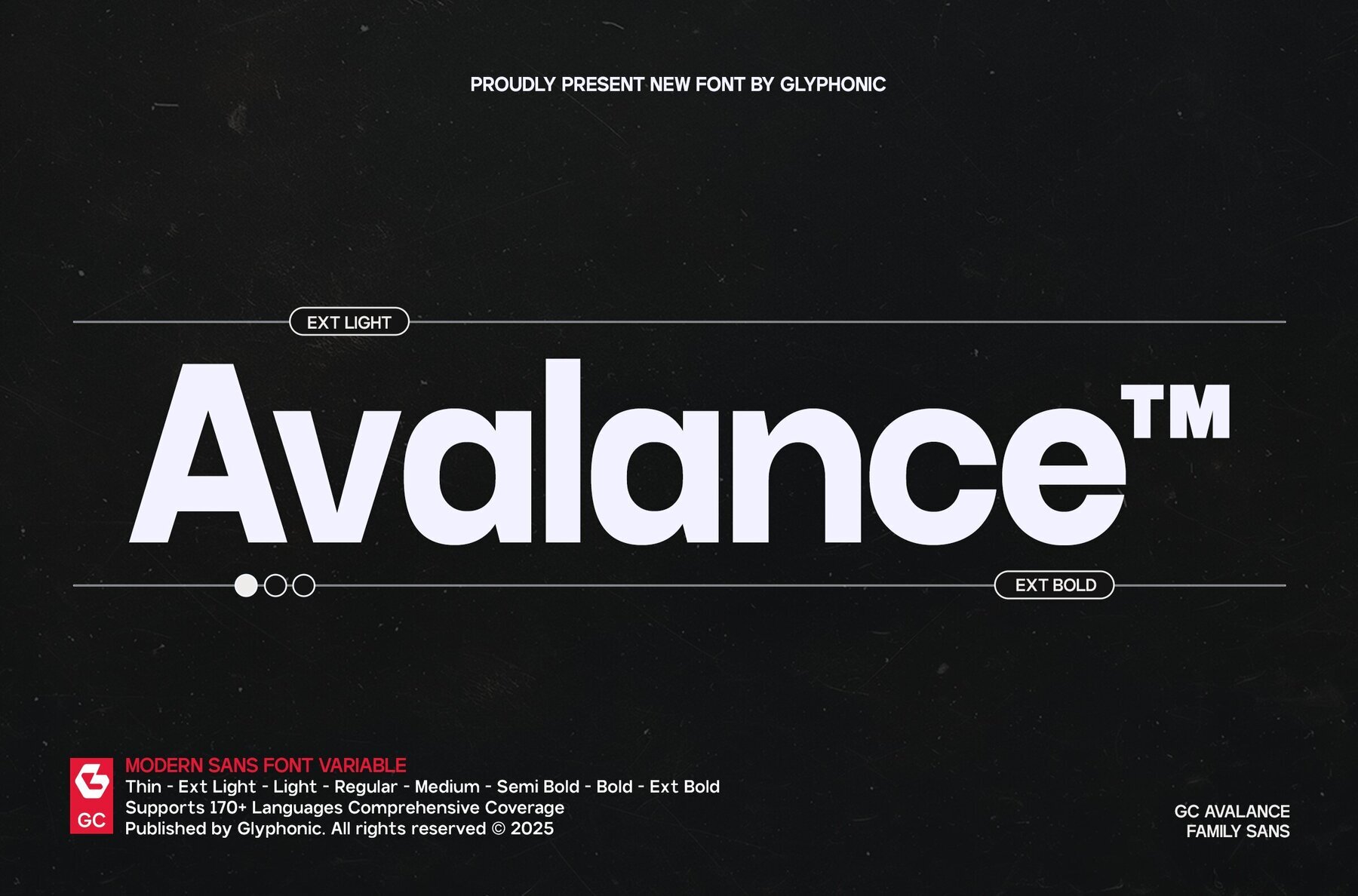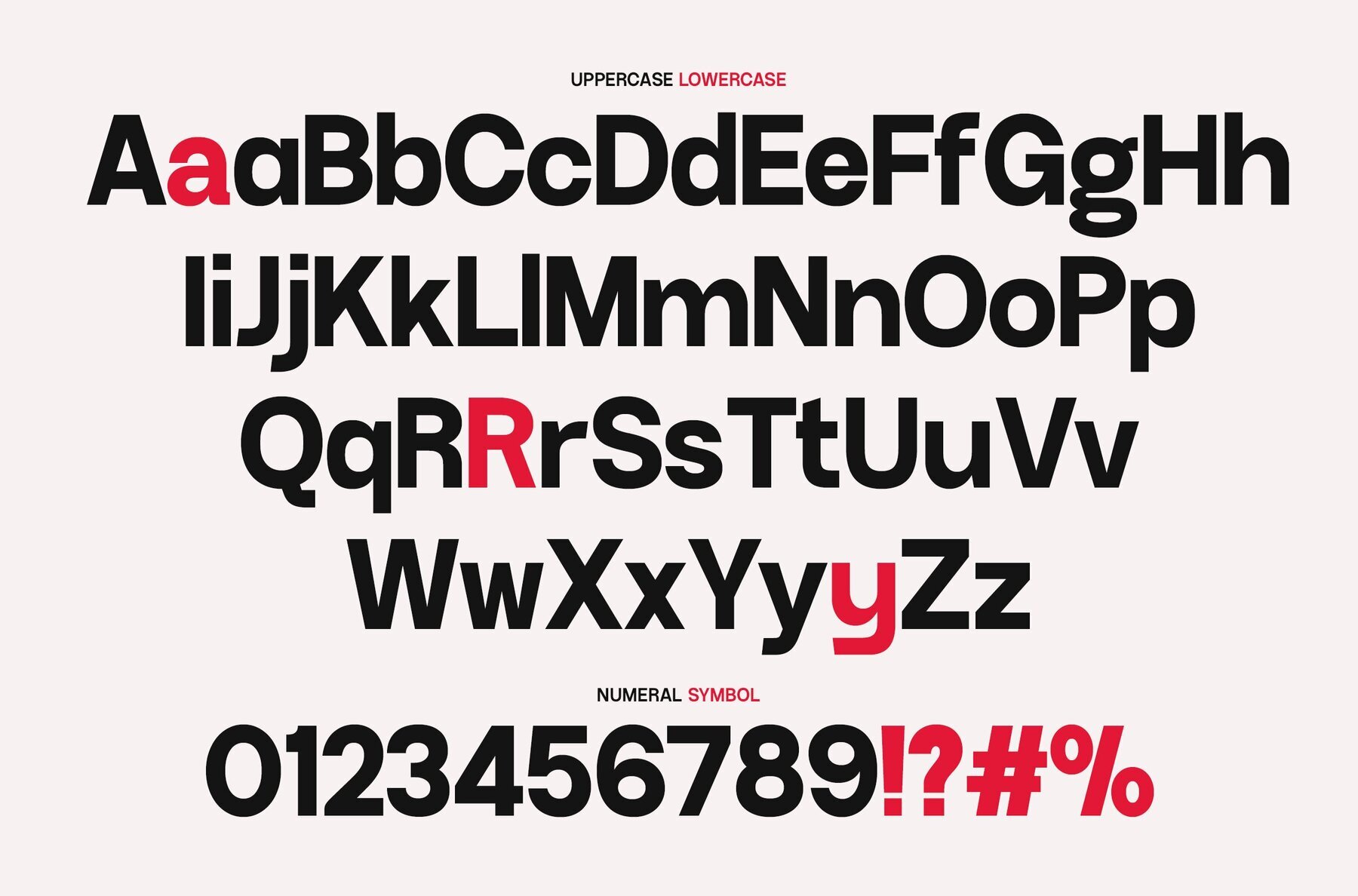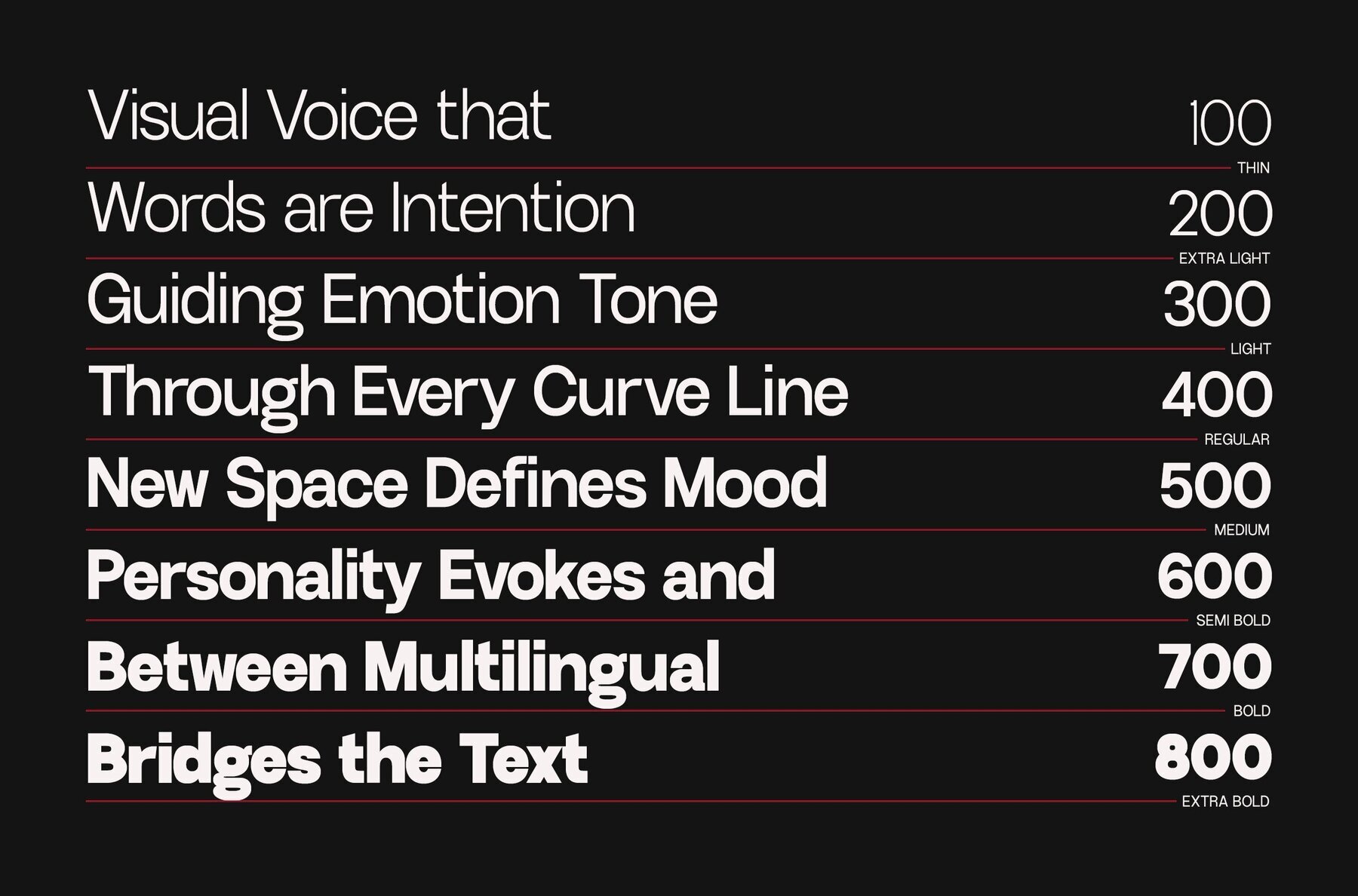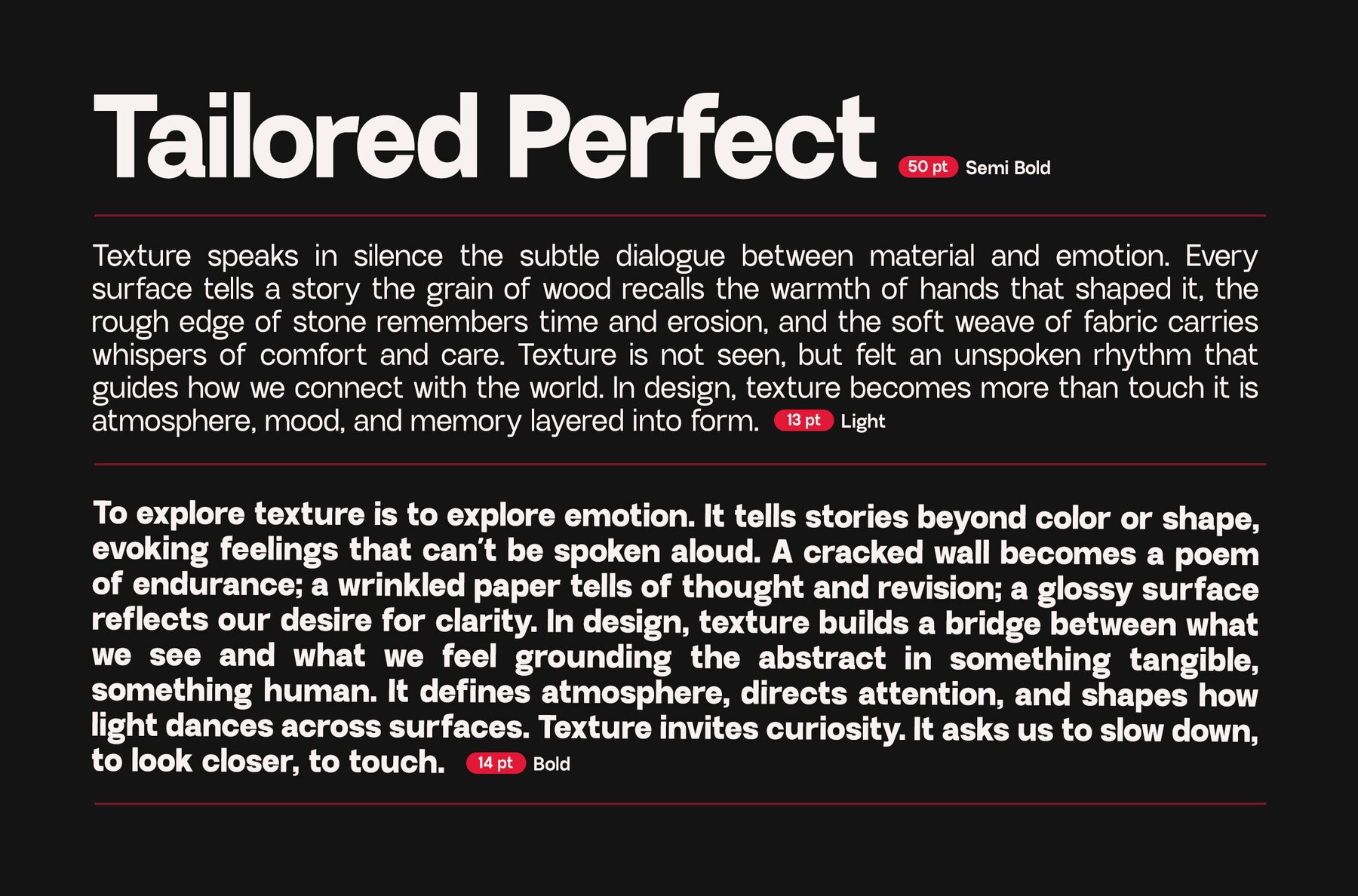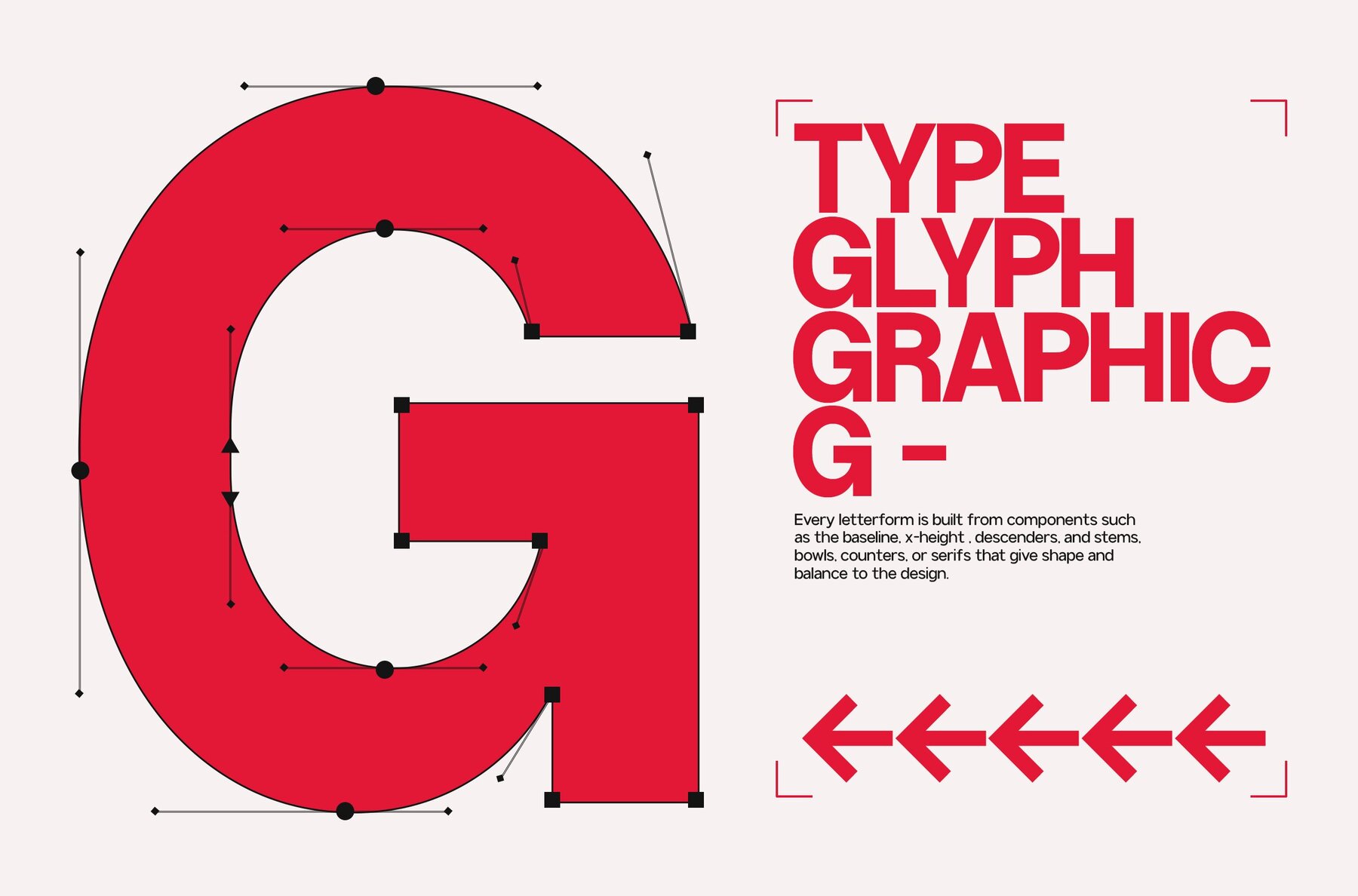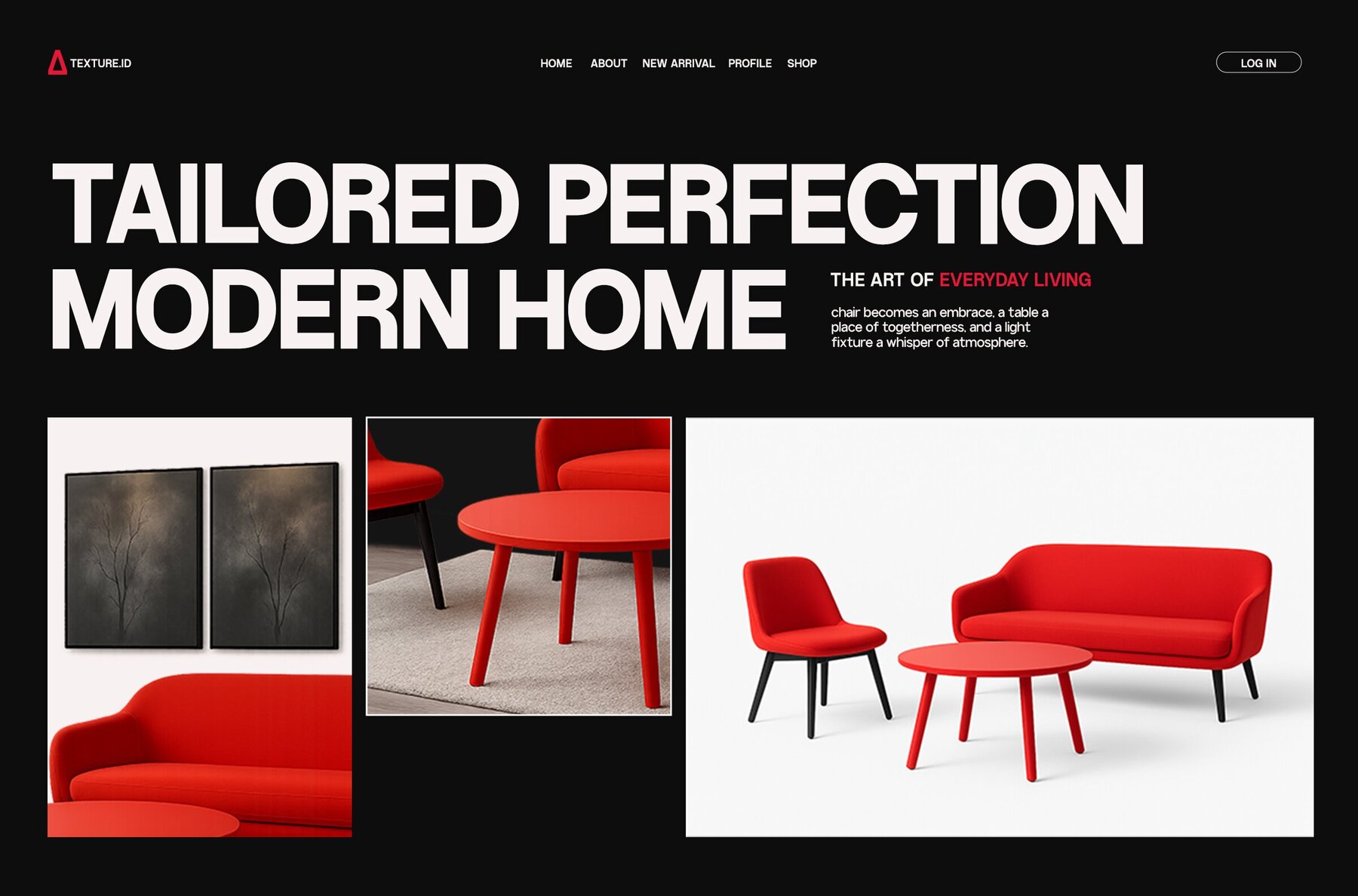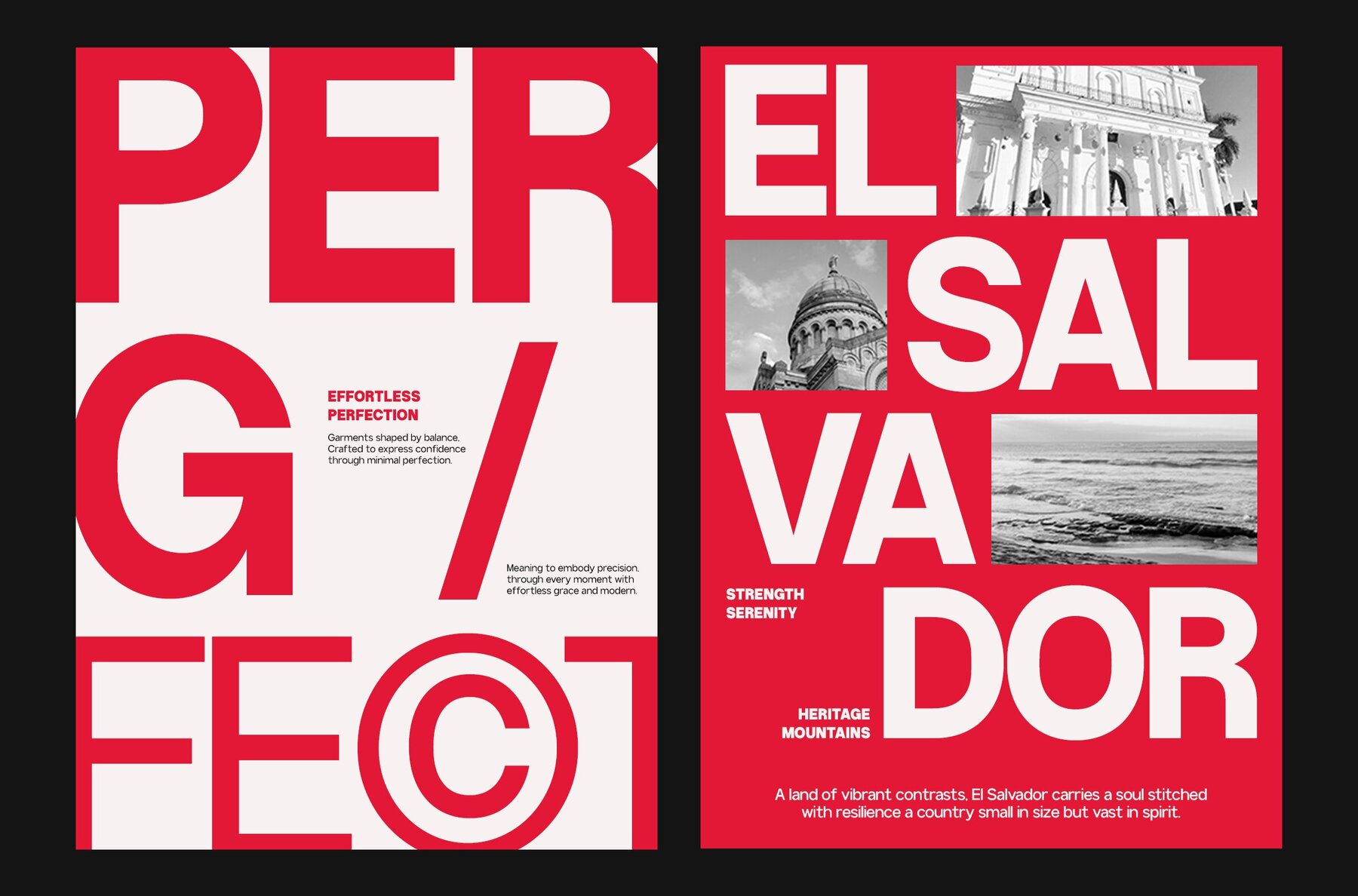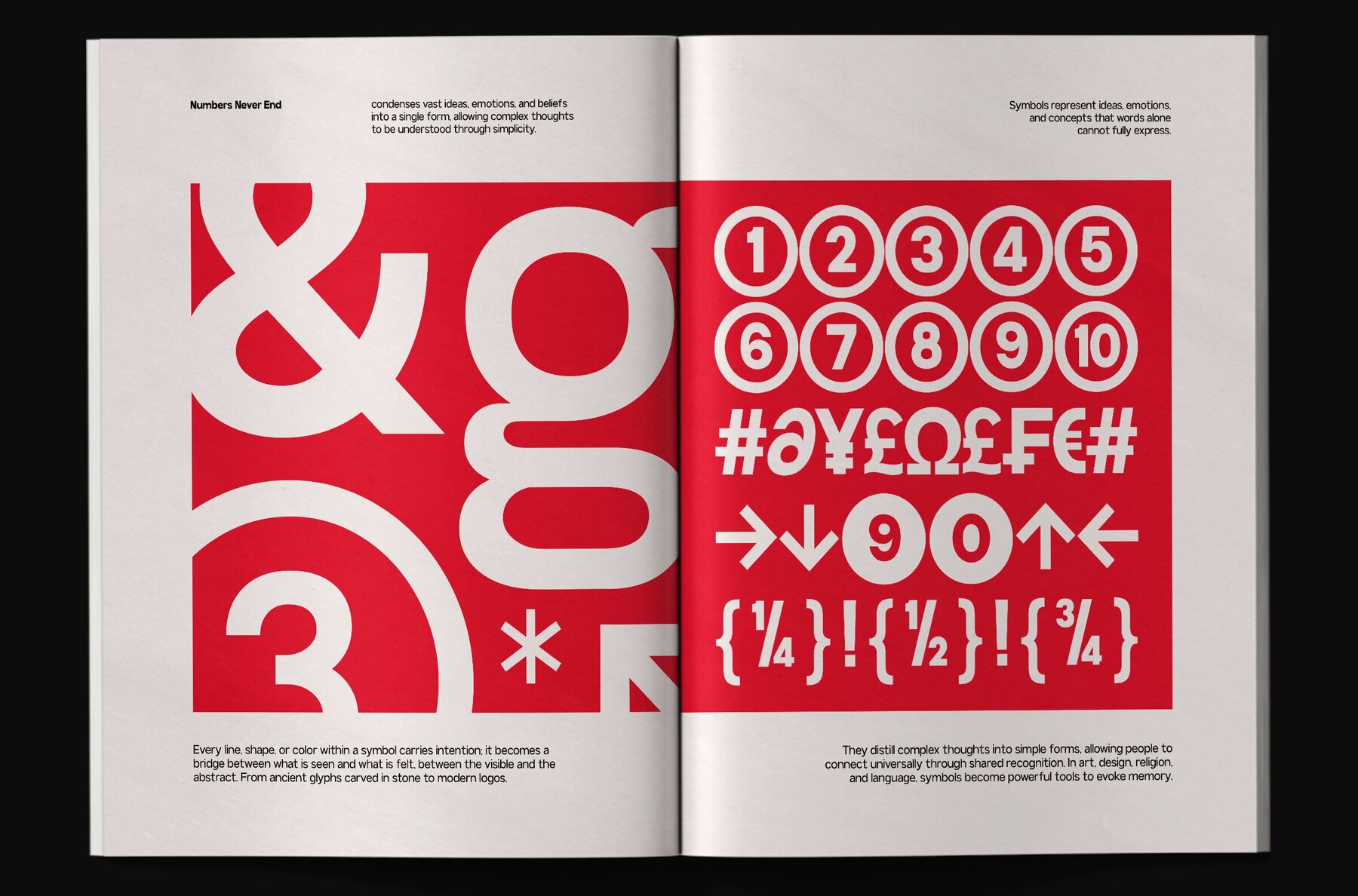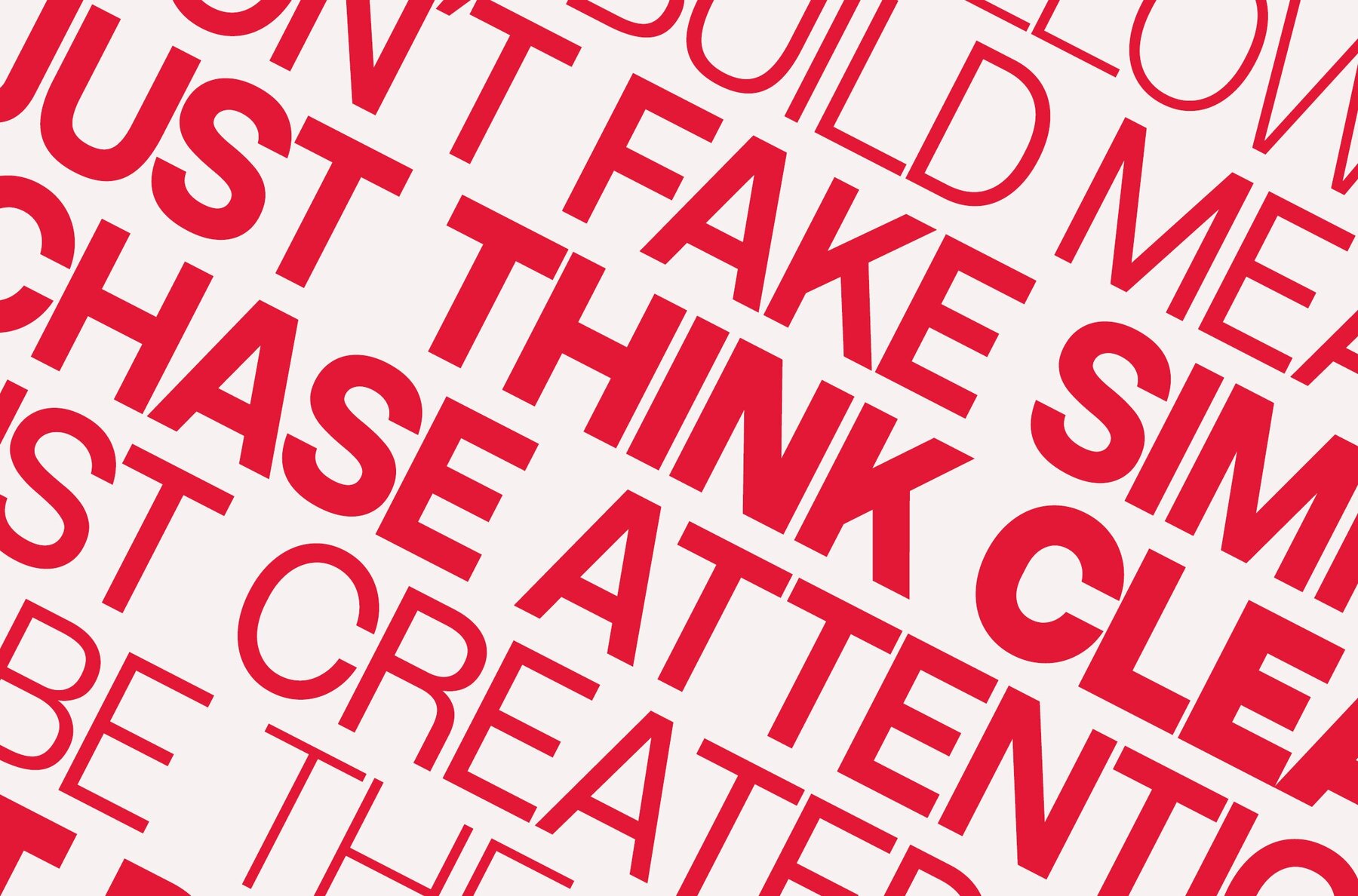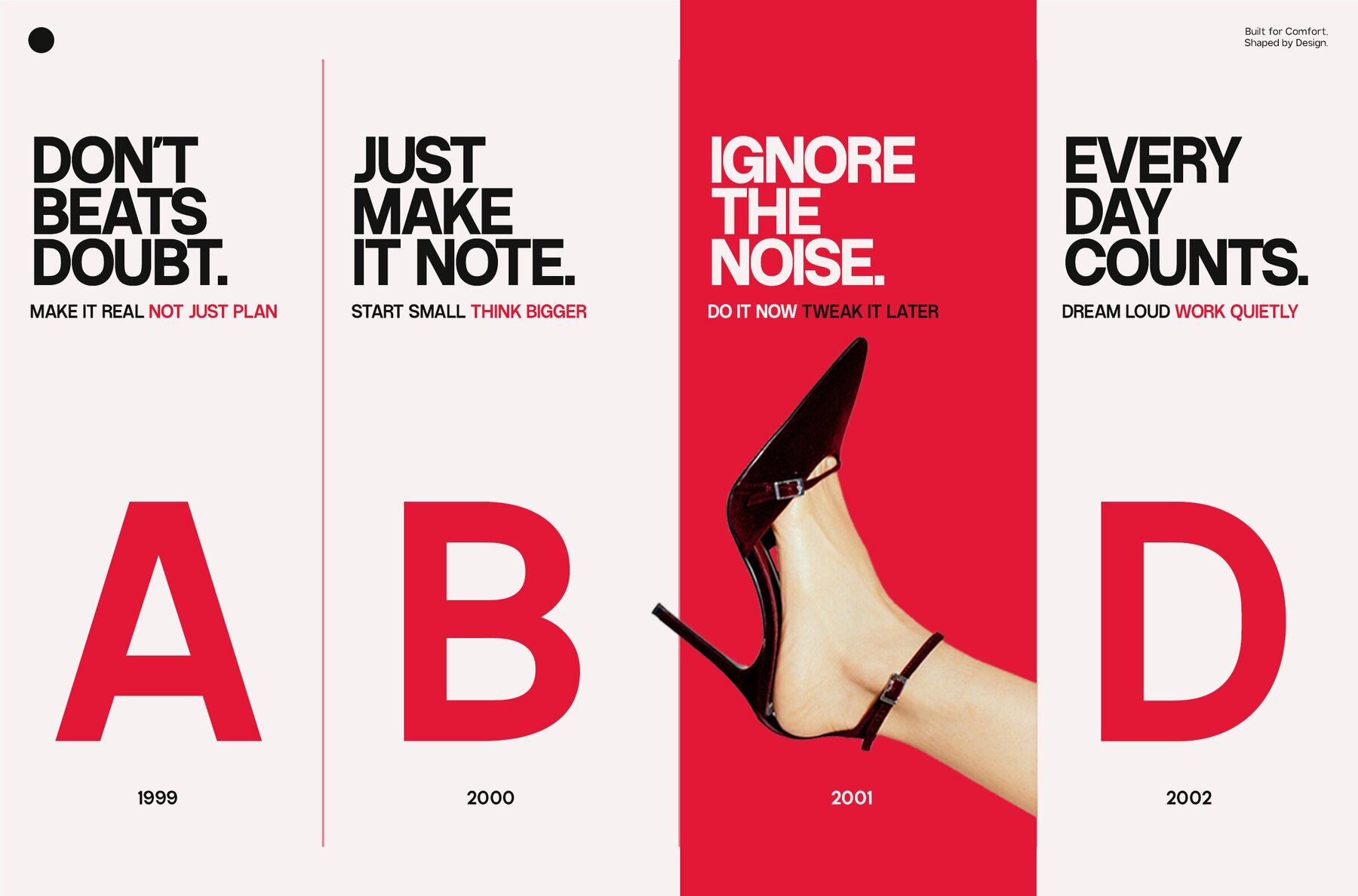
GC Avalance Font
GC Avalance is a contemporary sans serif font family designed with precision, balance, and versatility in mind. Its clean geometric structure combined with smooth proportions provides a bold yet refined voice, seamlessly adapting across digital and print design landscapes. Crafted for clarity in both motion and stillness, it infuses modern sophistication into any creative project. Ideal for branding, editorial layouts, interfaces, and bold visual identities, GC Avalance encapsulates a confident modern aesthetic without compromising readability. Available in weights from Thin to Extra Bold, this typeface is carefully tuned for harmony and impact, making it suitable for both headlines and body text. Features: Infuse your typography with clarity, structure, and a forward-thinking edge through GC Avalance.GC Avalance: Neo Modern Typeface for Precision and Versatility